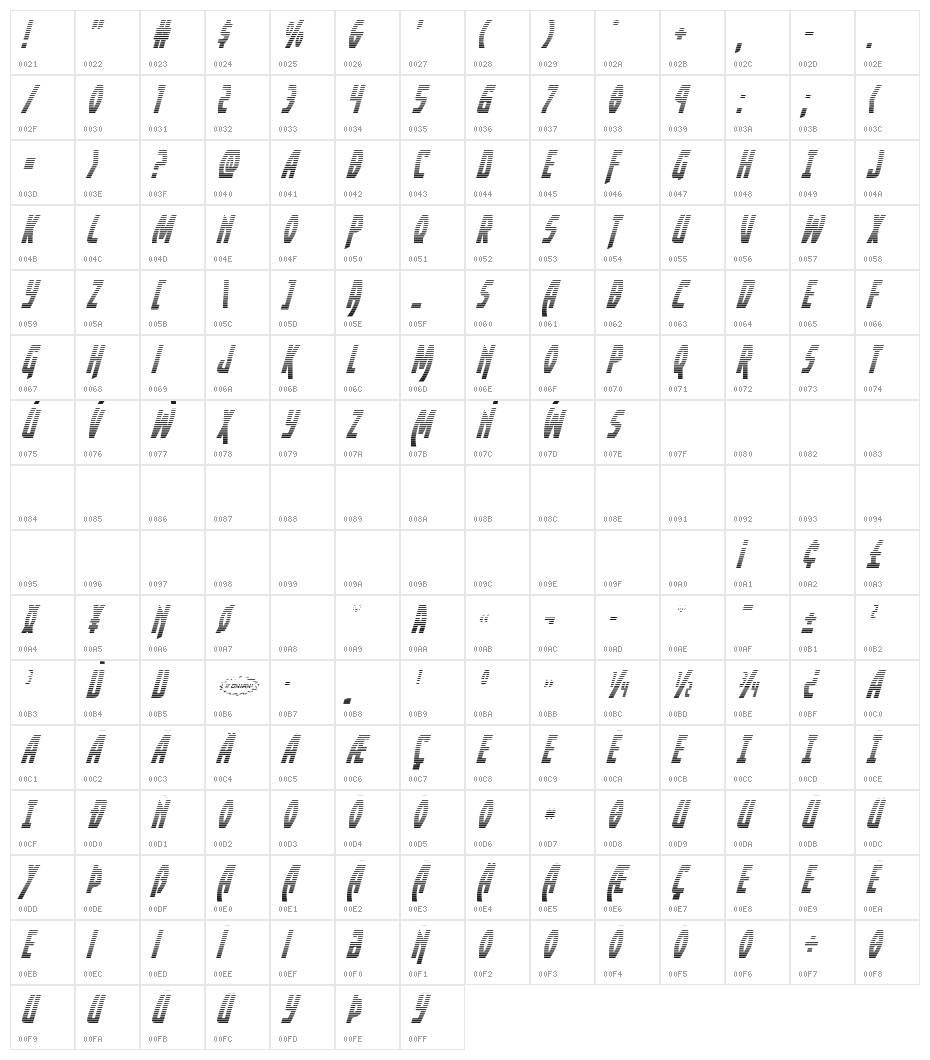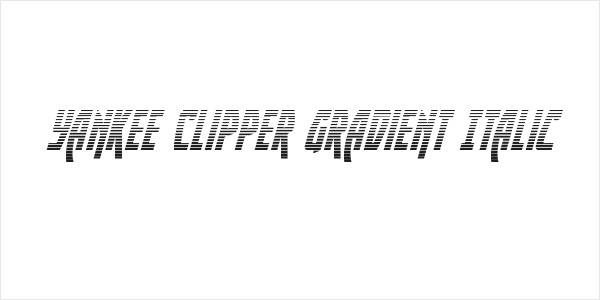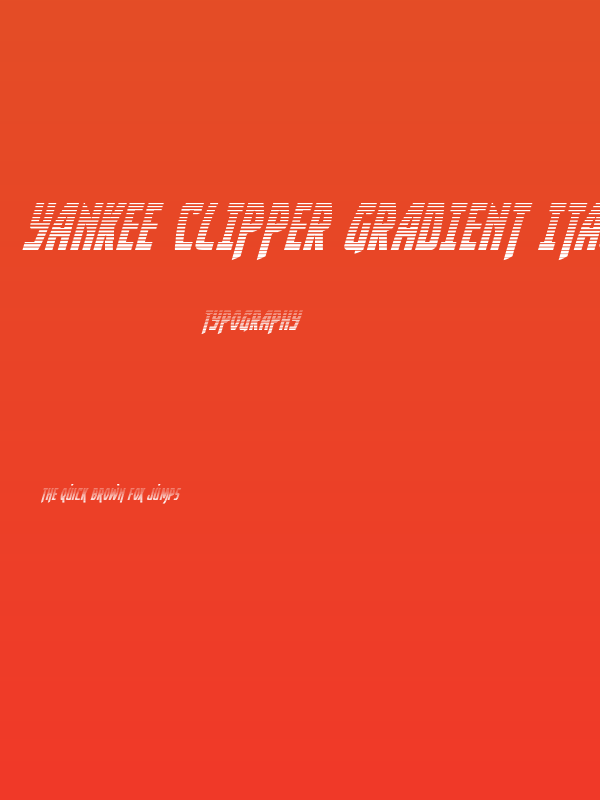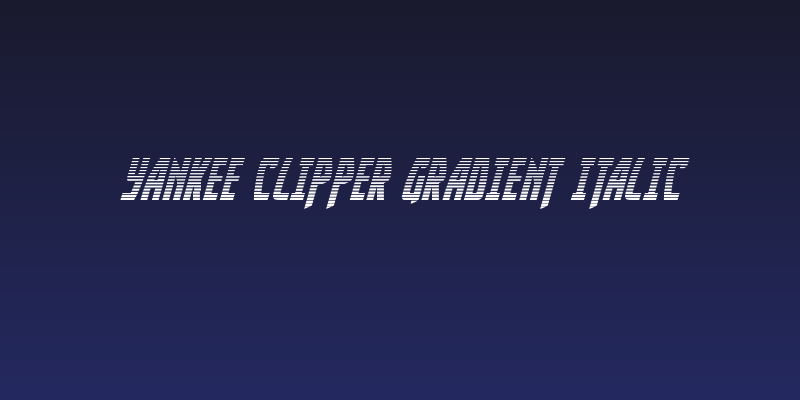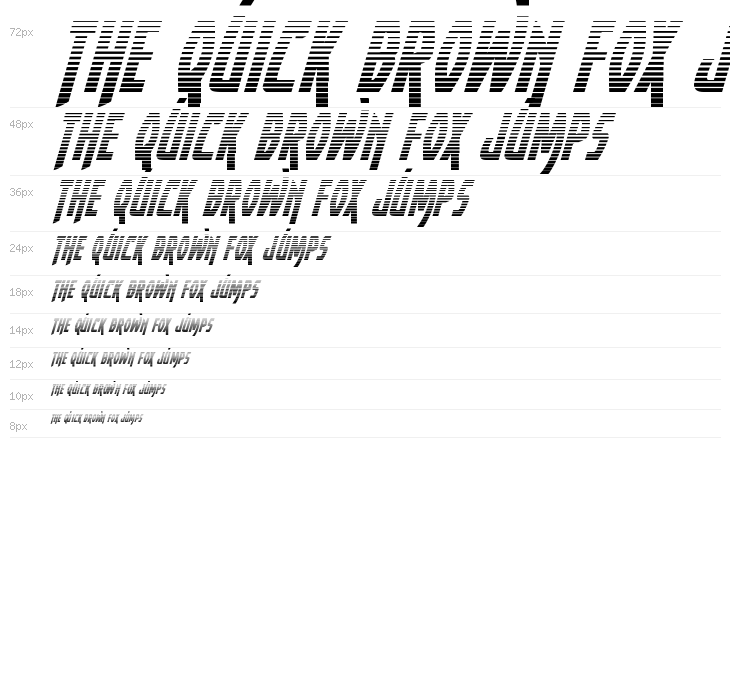
Yankee Clipper Gradient Italic Font
Yankee Clipper Gradient Italic Description
This font features a bold, italicized style with a unique gradient effect that gives the appearance of speed and movement. The characters are composed of horizontal lines that create a dynamic and futuristic look. The uppercase and lowercase letters maintain a consistent slant, enhancing the italicized effect. Numbers and special characters follow the same design, ensuring uniformity across all glyphs. The font's distinct appearance makes it stand out, ideal for projects that require a modern and edgy aesthetic.